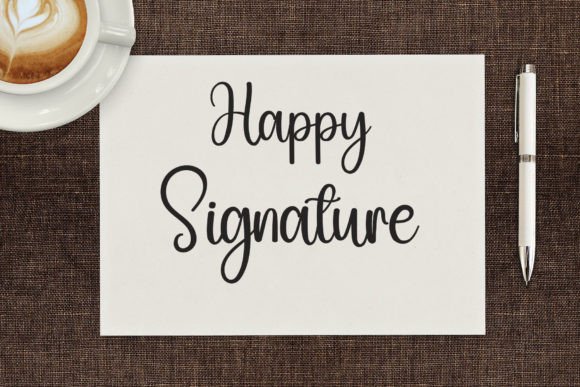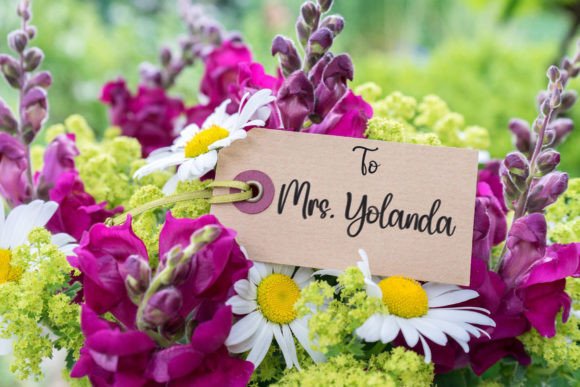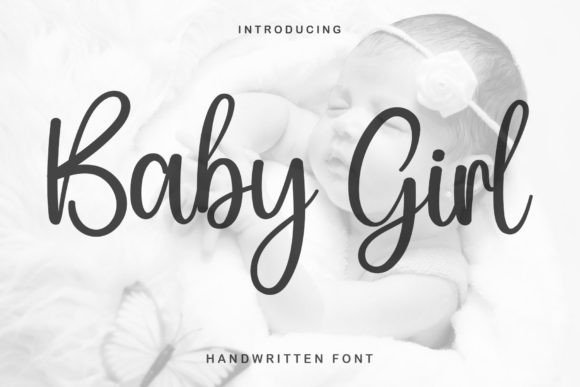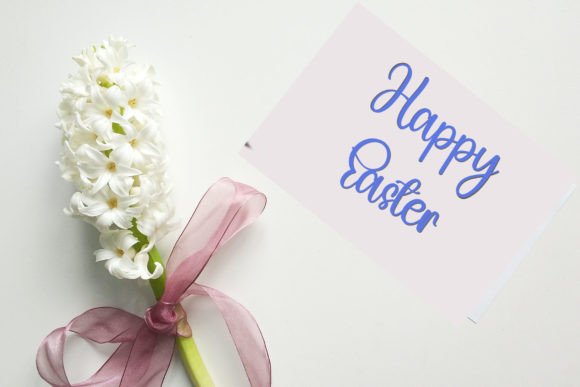
About the Baby Girl Font
Let us introduce you to Baby Girl Font, where timeless design meets modern craftsmanship. Baby Girl is a trendy handwritten font with a contemporary atmosphere and impeccable form, inspired by timeless classic calligraphy. It will add elegance and class to any of your design projects.